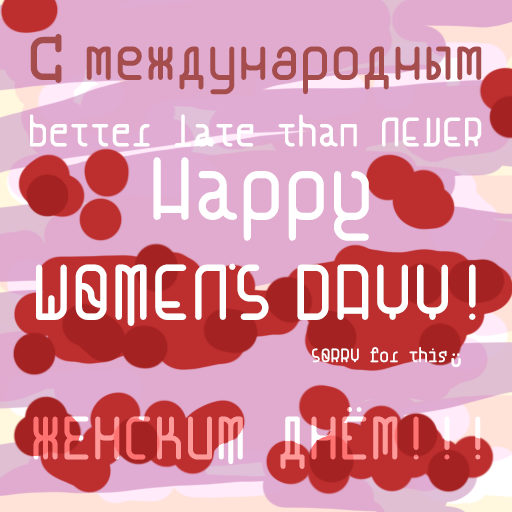
•                     Experimental monospaced font.
As I know you, you like constuctive criticics!
In my opinion C and G are too long in the upper length, the S/s looks different/better. I do not understand j and x. m/w looks a little bit sad. Maybe you can adjust the glyphs (latin/cyrillic) a bit in width?
Noticeable are the numbers 7/3 and the small letter z - as well as 1-5. They are a bit out of line with their curves and their mids.
Unfortunately, the forms do not open up to me, although the "rest" of the Alhpabet (Latin/Cyrillic) seems quite modern and balanced. Also, the V/v looks a bit too wide and massive in comparison to U/u and W/w,  M/m. The proportions do not seems to be quite right (the perpendiculars), even though they may mathematically have the same width. Why is (Cyrillic small letter yu) ю so shapeless and crowded (disproportionate) to the rest? I thought, this very alphabet is very important to you. You may want to rethink the width of the letters for a more harmonious look.
Does the lower case j really need a dot. I think I like it better without.
I would not recommend putting two or more alternates in the same glyph... )If you put 5 alt. й's in one glyph, it would display as ййййй, not й...)
This monospased font is not designed consistently, as it is experimental, I tried some ideas on it. Type is a beautiful group of letters, not a group of beautiful letters.
Someday I'm going to make a font that is a group of beautiful letters, every one a different  style and size ;)